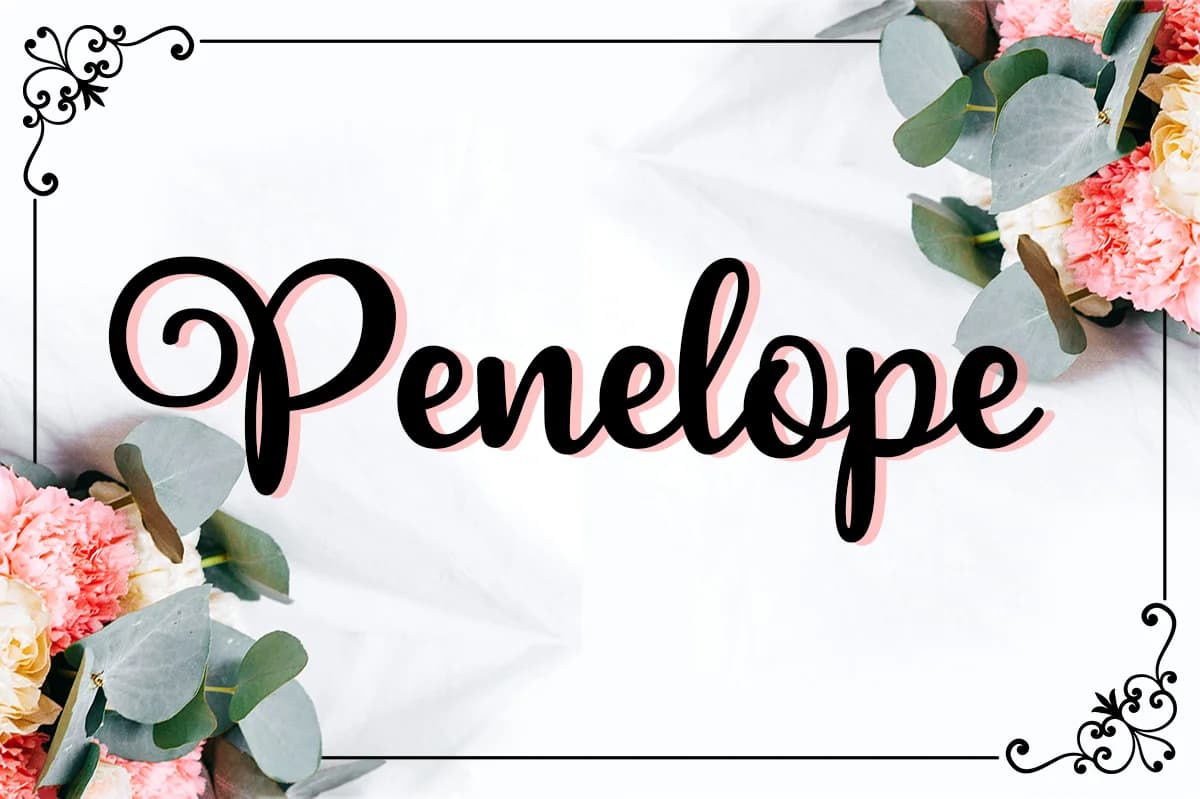
Penelope Font by Silhouette America, Inc. is a flowing handwritten script designed to balance approachable charm with sophisticated elegance. The font's carefully weighted letterforms make it particularly well-suited for creating wedding invitation suites, where readability and refinement need to work together seamlessly. The consistent weighting throughout the typeface ensures that the script maintains excellent clarity whether used in large display sizes or smaller body-text applications across both digital and print formats, making it a versatile choice for varied design needs.
Beyond traditional stationery, Penelope works beautifully for beauty and wellness branding projects, especially on cosmetic packaging, boutique skincare labels, and handmade product tags created by small business owners seeking to establish professional yet personal brand identity. The font's timeless character also lends itself perfectly to personalized greeting cards, custom monogram designs, and anniversary announcements. Its natural, flowing quality brings warmth to lifestyle content and social media graphics, making it an excellent option for creators wanting to convey both professionalism and authentic personality in their work.
Whether you're designing intimate keepsake items, building cohesive brand identity across product lines, or creating bespoke packaging for artisanal goods, Penelope delivers refined visual polish without sacrificing warmth or authenticity. Discover how this elegant script can enhance your creative work by adding Penelope Font to your Creative Fabrica collection.
Penelope Font is a script font that shines as a display or heading face. Pair it with a clean sans-serif or serif font for body text β the contrast creates a clear hierarchy while the two styles stay balanced and easy to read.